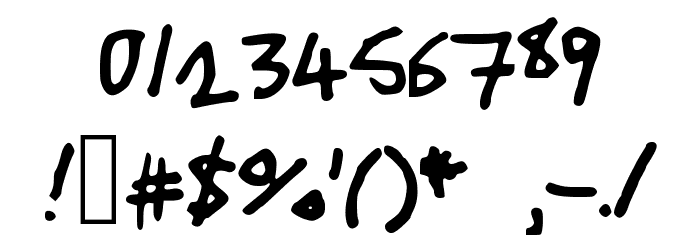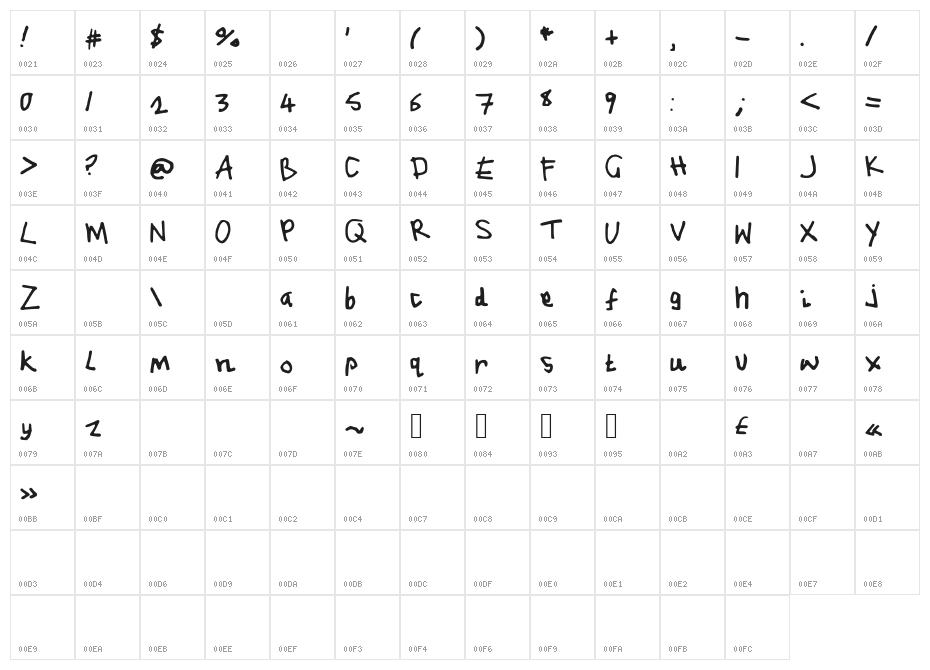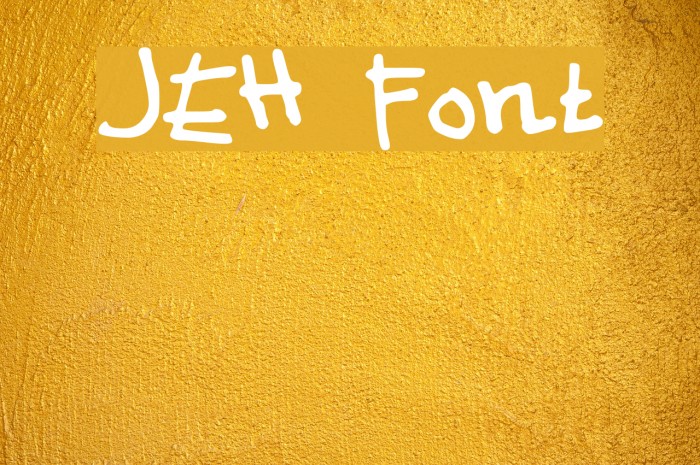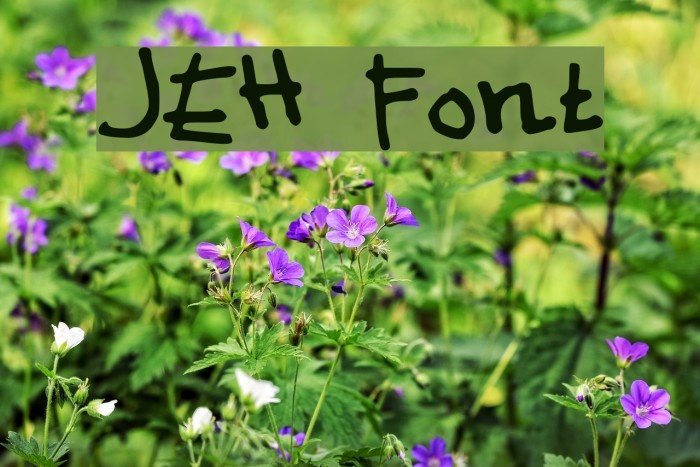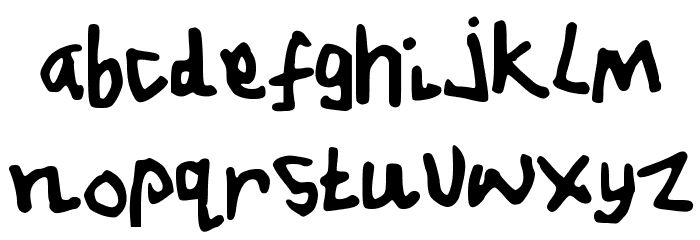
JEH Font
JEH Description
This font exhibits a playful and informal handwritten style, characterized by its uneven strokes and casual appearance. The letters are slightly irregular, giving it a personal and approachable feel. The uppercase and lowercase letters maintain a consistent style, with rounded edges and a slight slant, enhancing its informal nature. The numbers and special characters follow the same playful design, making it suitable for creative and informal projects. The overall look is reminiscent of a quick, casual handwriting, perfect for adding a personal touch to any design.